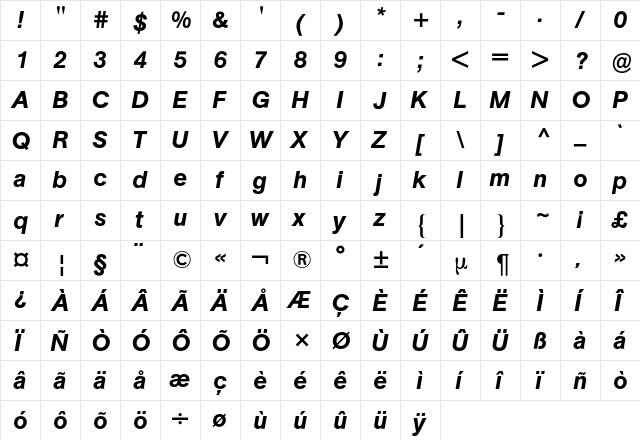
AG Buch BQ Regular Font Preview
AG Buch BQ Regular
AG Buch BQ Regular Font Details
Design Context for AG Buch BQ Typeface
AG Buch BQ is a composed and adaptable typeface that performs quietly and consistently across a wide range of design contexts.